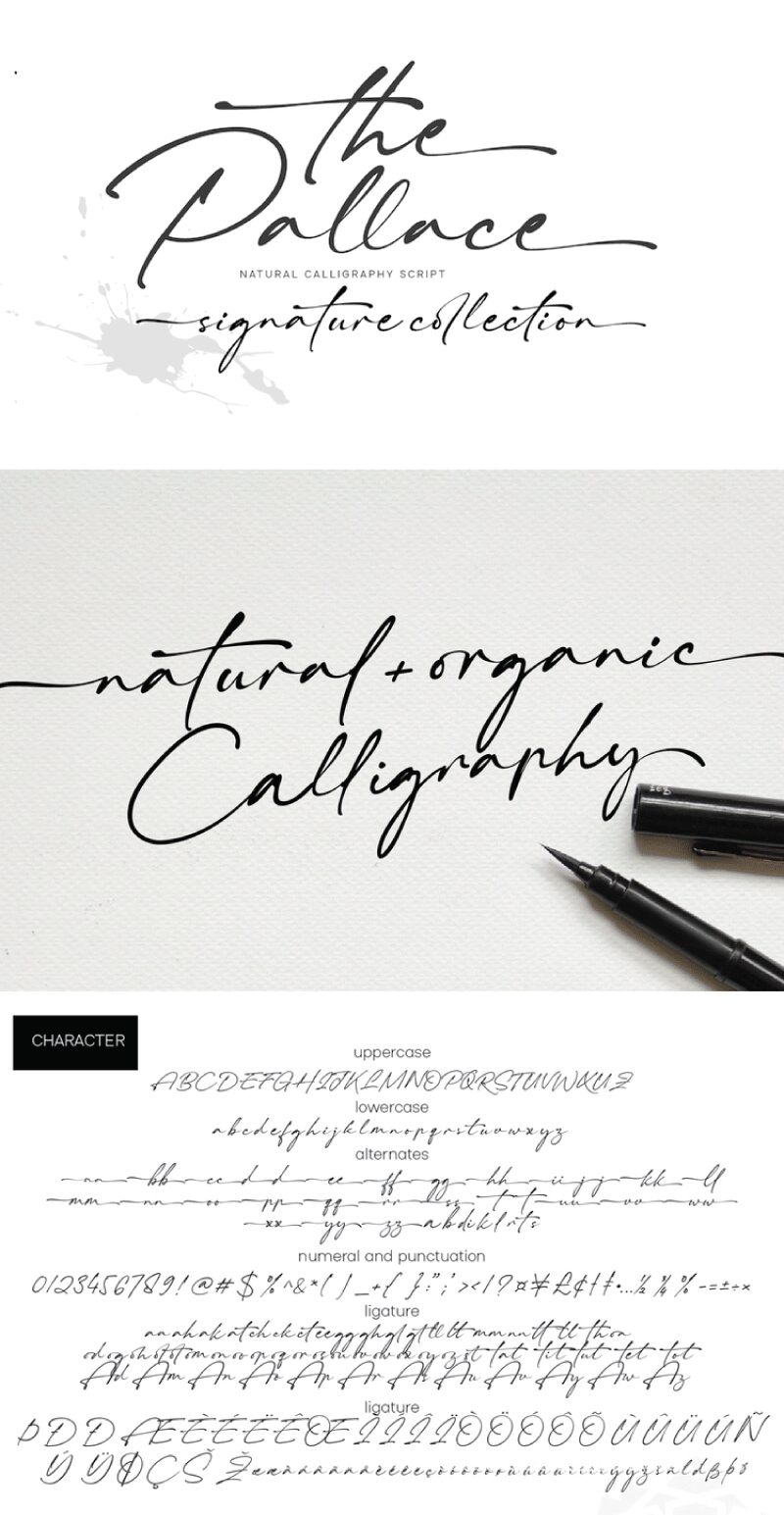
ThePallace-Regular
The Pallace font by Cititype is a handwritten font with signature and script style cues. While light in weight, this elegant, sophisticated typeface will meet your expectations of portraying casual yet refined looks. Smooth strokes allow The Pallace to lend itself perfectly for modern typography projects whether digital or print.